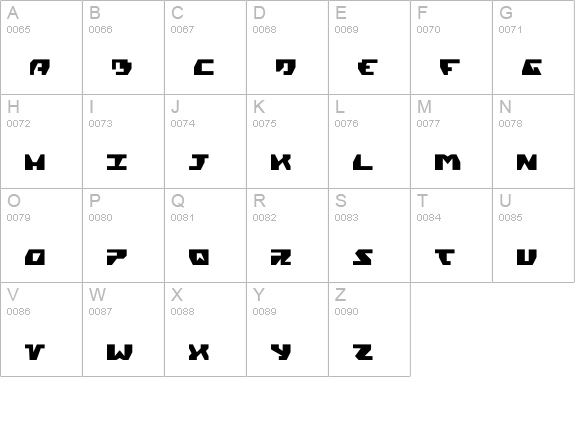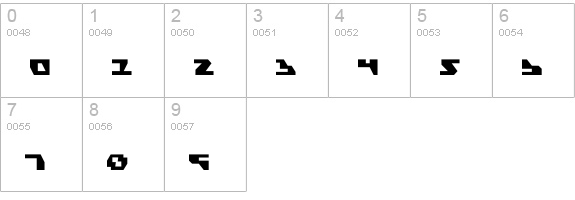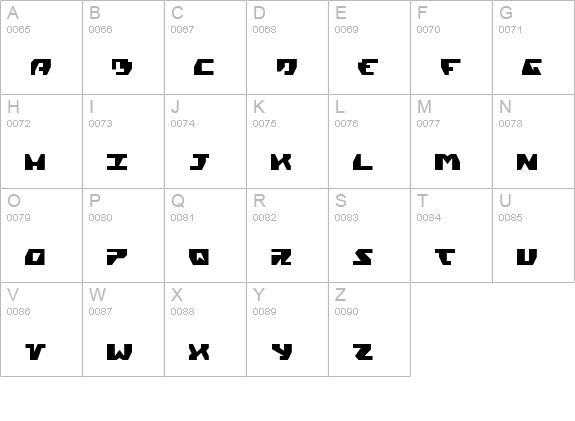
Gyrfalcon font is a striking and versatile typeface that exudes elegance and sophistication. Its bold and clean lines make it perfect for a wide range of design projects, from branding to editorial layouts. With its timeless appeal and modern twist, Gyrfalcon font stands out as a truly unique choice for your creative endeavors. The best part? Gyrfalcon font is available for free download at FontsMarket.com. This means that you can enjoy the beauty and functionality of this exquisite typeface without any cost. So why wait? Download Gyrfalcon font today and elevate your designs to new heights with its stunning aesthetic and exceptional quality.